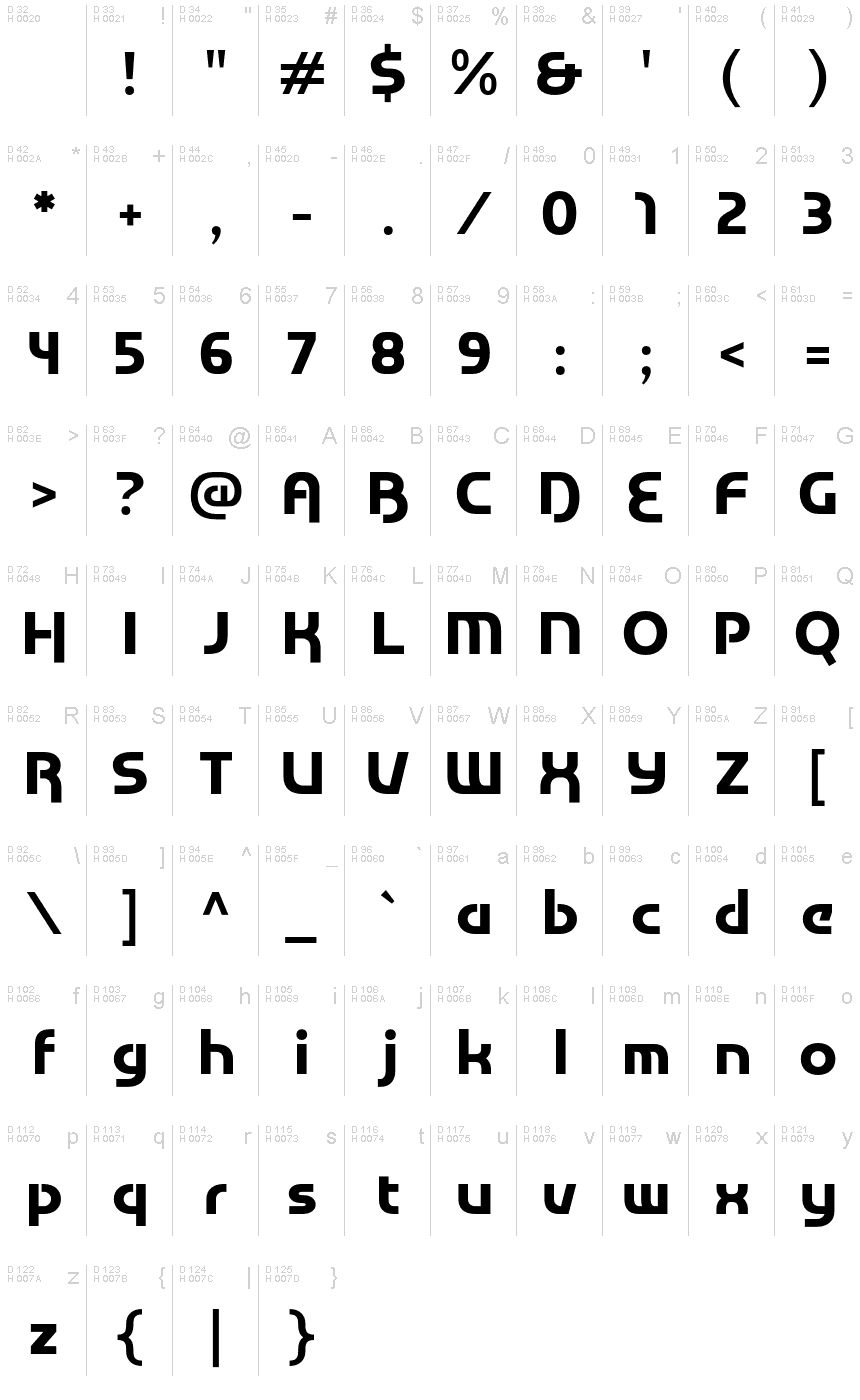
Roobek-Regular
Roobek, the modern sans serif font designed by Drizy Studio, is the perfect choice for those seeking a bold and dynamic typeface. With its semi-wide width, Roobek adds a touch of sophistication to any project while still maintaining readability. Whether you're designing a sleek website or crafting eye-catching marketing materials, Roobek will make your content stand out. This versatile font is suitable for a variety of projects, including branding materials, editorial design, packaging design, and more. Elevate your designs with Roobek's clean lines and contemporary feel.